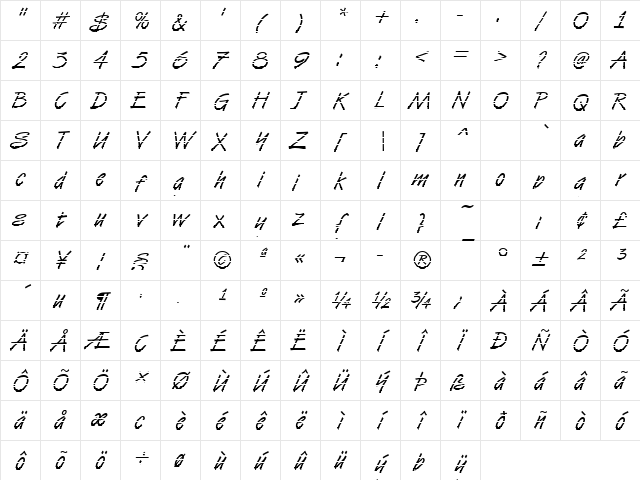
Complete VanDijk19 Becker Regular glyph index. Displaying only characters natively supported by VanDijk19 Becker Regular font.
VanDijk19 Becker is a composed and adaptable typeface that performs quietly and consistently across a wide range of design contexts.